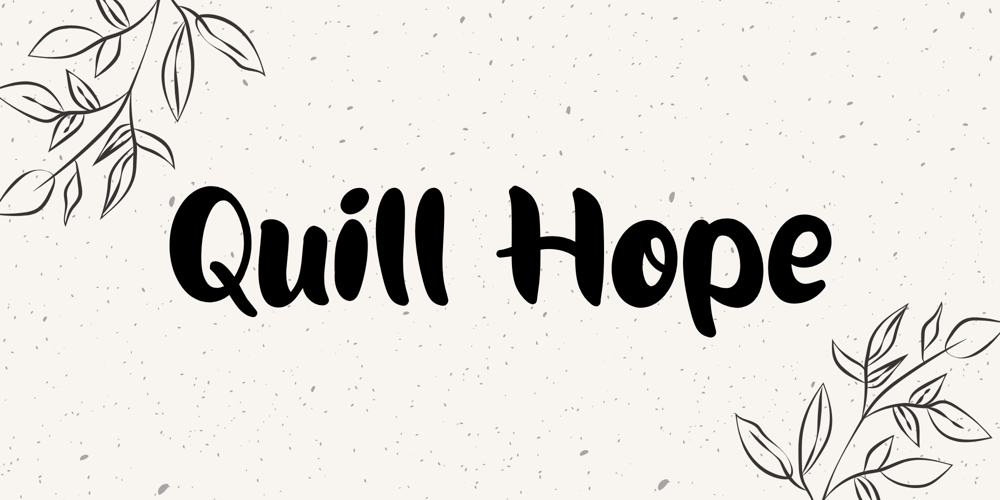
Quill Hope
Quill Hope font
Quill Hope Font Family was designed by Nur Aiysah Amalia and published by Aisyah. Quill Hope contains 1 styles and family package options. Quill Hope script font is a typeface characterized by its handwritten and brushstroke-like appearance. This style typically mimics the fluidity and expressive qualities of brush lettering, often featuring varying stroke thickness and dynamic, energetic lines. Brush script fonts are popular for conveying a casual, artistic, or personalized feel in design projects such as invitations, logos, and other creative applications.